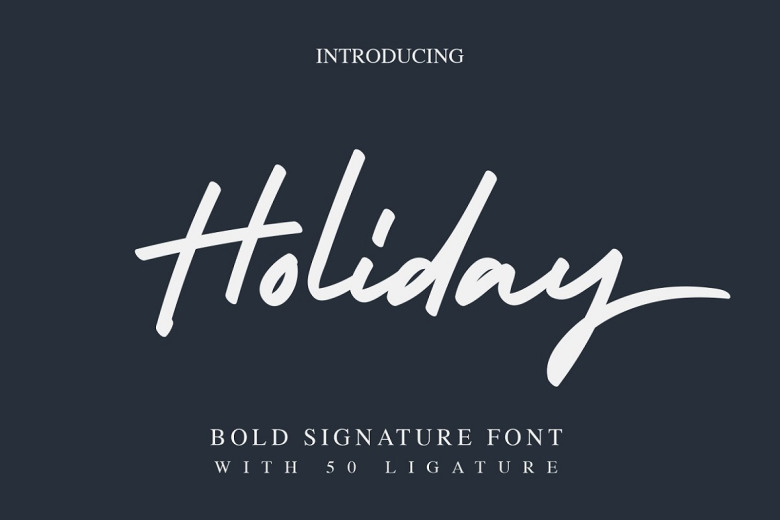
Holiday Font
Introducing our UPDATE “Holiday – Script Handwritten Font”. Two years ago we created a script handwritten font that we named Holiday, we didn’t expect, hundreds of designers have use the Holiday font, this is really cool font. And today, we’ve been working hard to make this Holiday font even better, it’s the best script handwritten font we’ve ever made, we’ve named it Holiday2.
Holiday2 – Script Handwritten Font is a handwritten script font with a simple and classy style, this font is great for your next creative projects such as branding, watermark on photography, signature or signature logo design, quotes, album cover, business card, and many other design project. From business cards to photo watermarks, Holiday2 is here to elevate your work to the highest level.
Holiday comes with uppercase letters, lowercase alternative letters, numbers, punctuation, ligature and multi lingual support
Holiday Handwritten Font